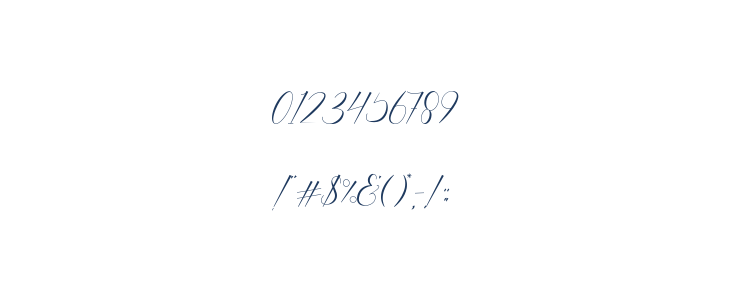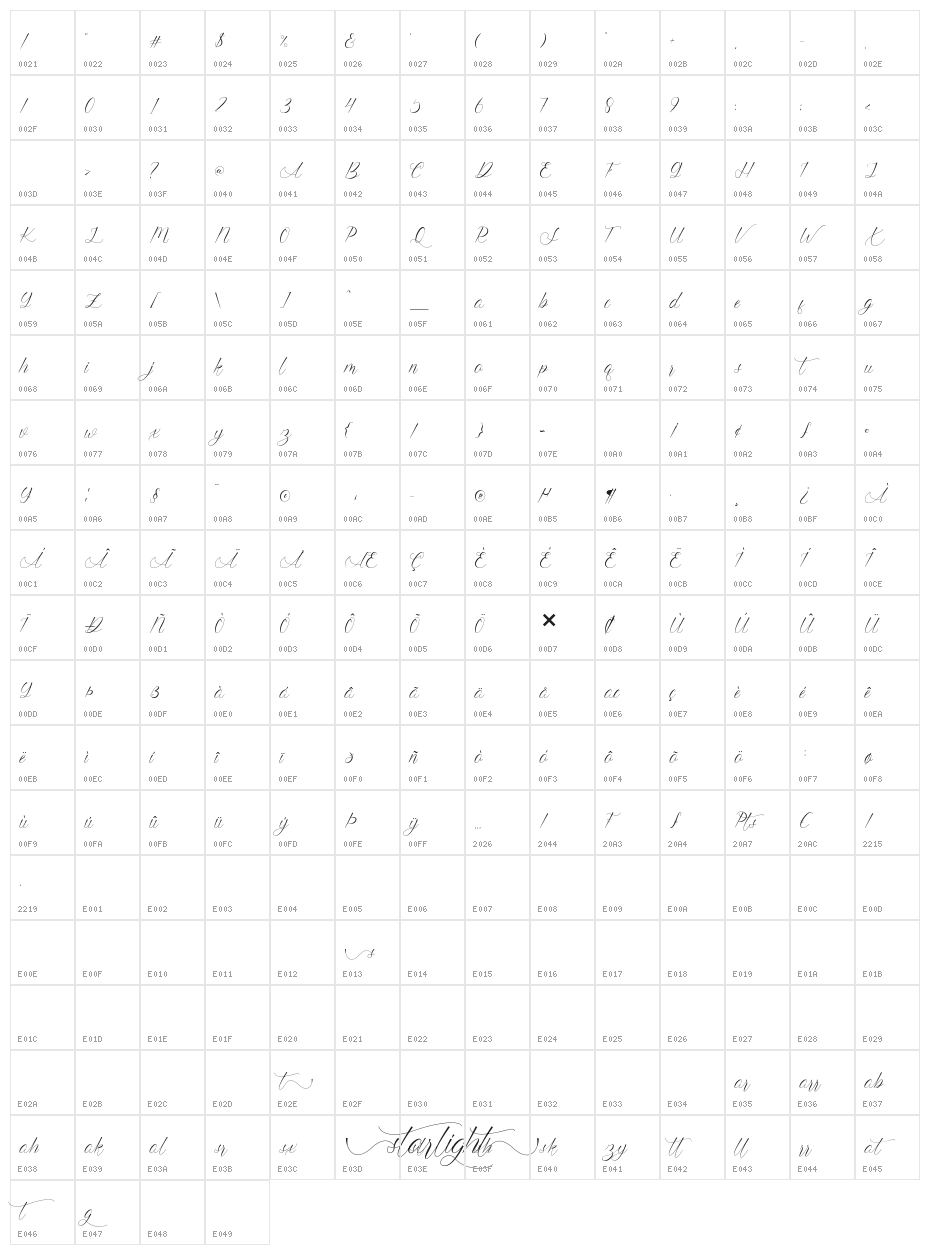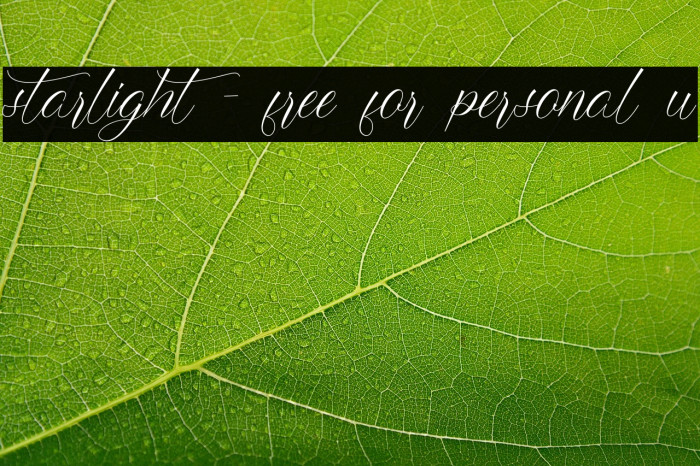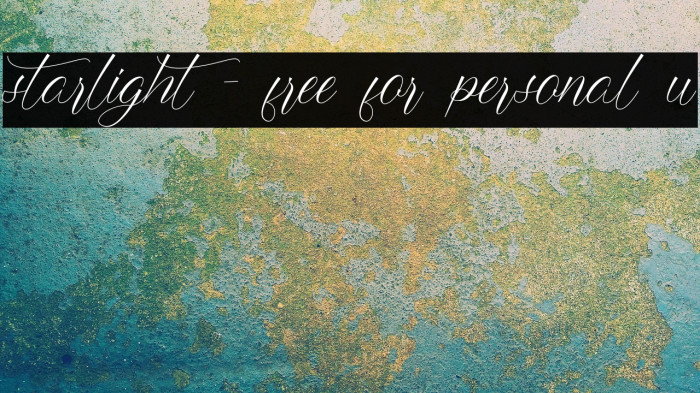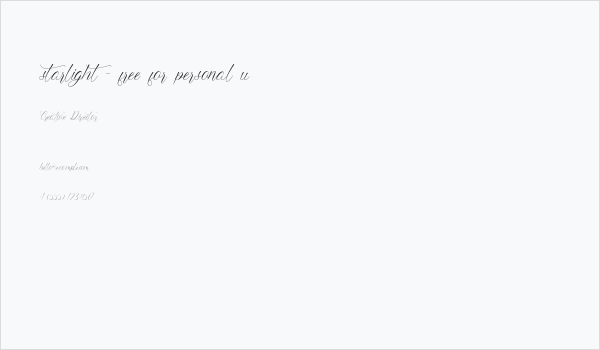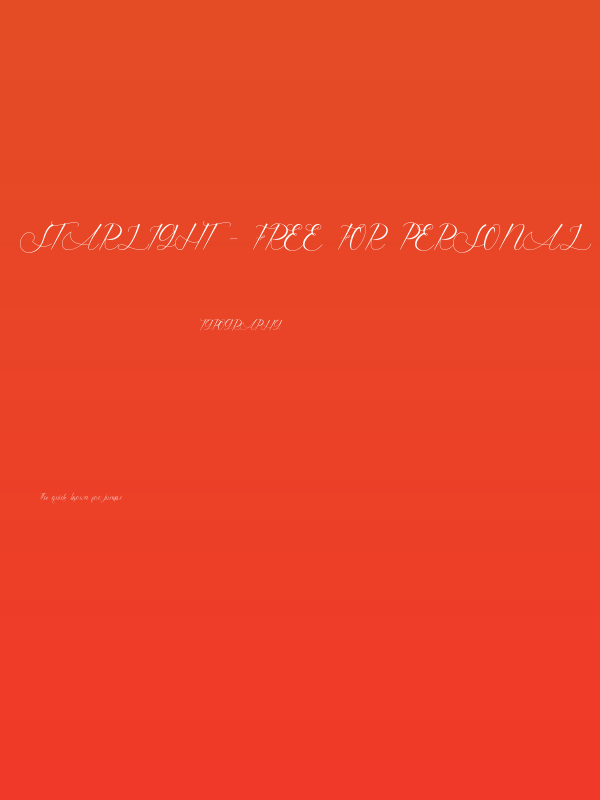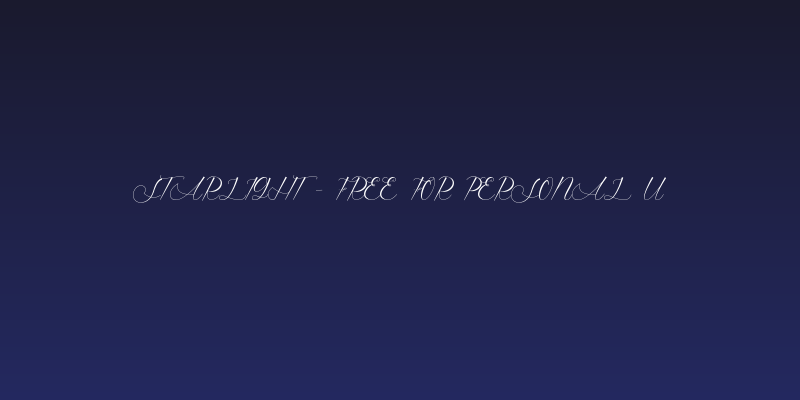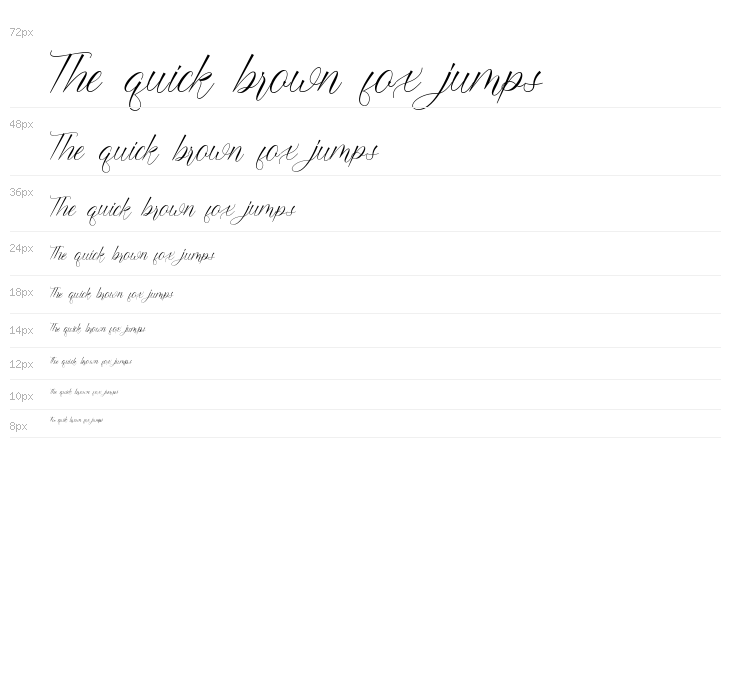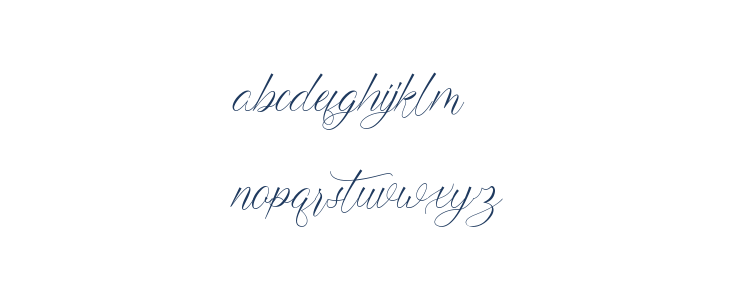
starlight - free for personal u Font
starlight - free for personal u Description
This elegant script font features flowing, interconnected letters with a graceful and sophisticated appearance. The uppercase letters are particularly ornate, with sweeping curves and flourishes that add a touch of luxury and refinement. The lowercase letters maintain a consistent style, offering a seamless blend between characters. The numbers and special characters are designed with the same attention to detail, ensuring a cohesive look across all elements. This font's delicate strokes and high contrast between thick and thin lines give it a refined and polished look, making it ideal for formal invitations, branding, and other high-end design projects.